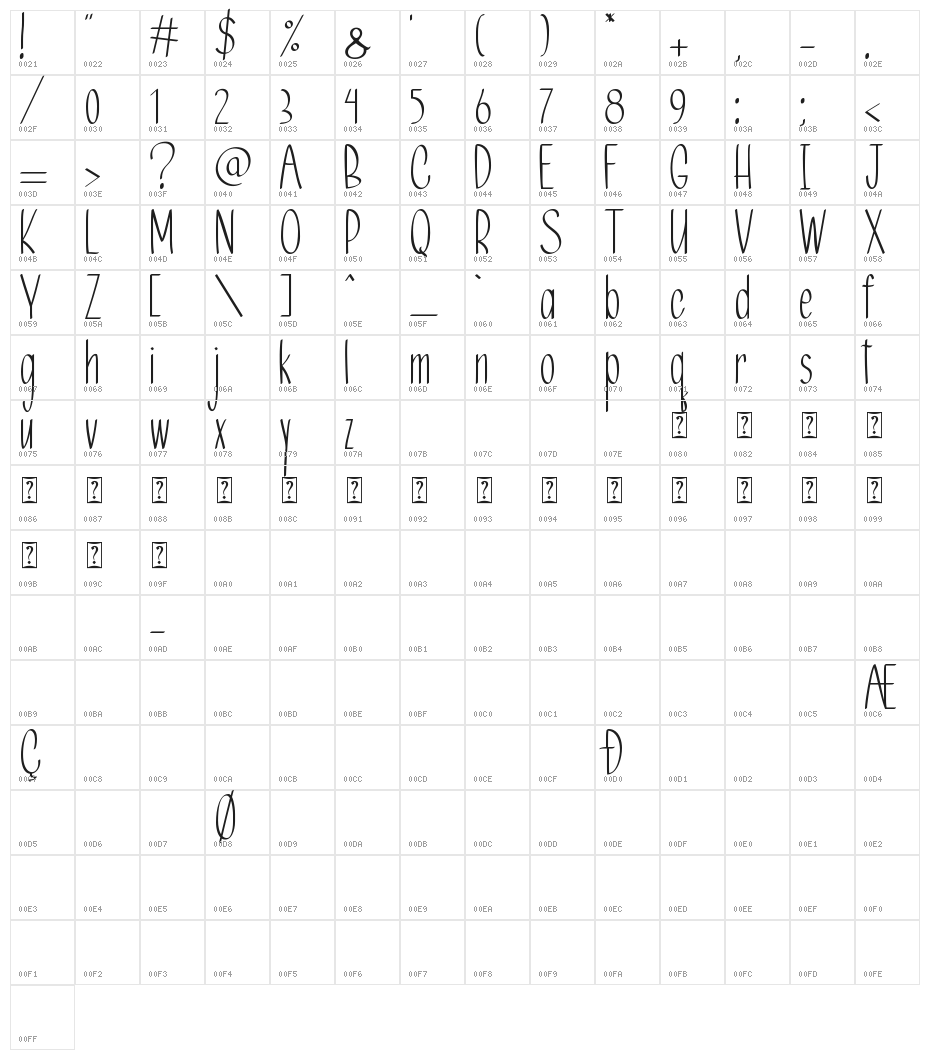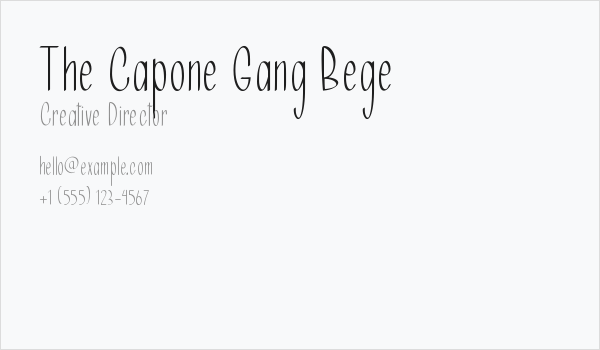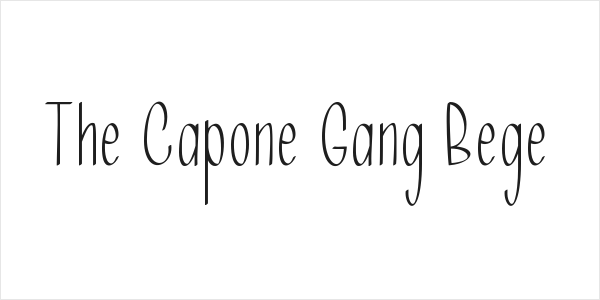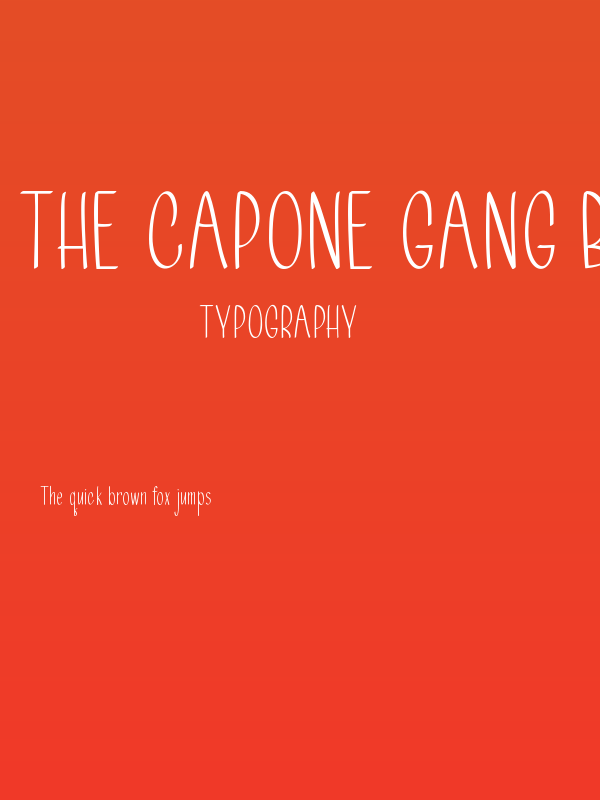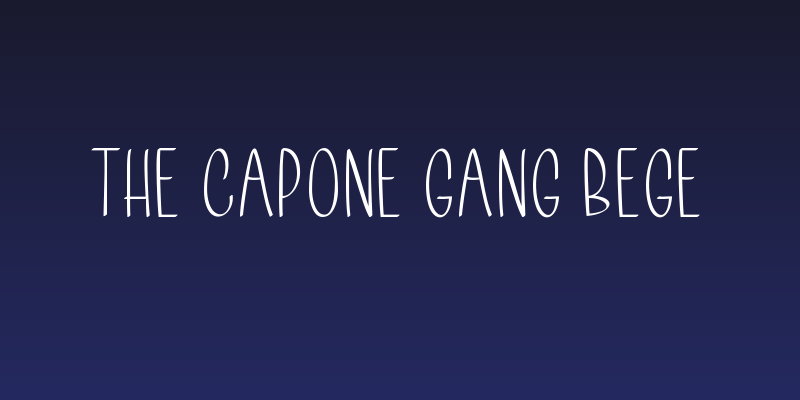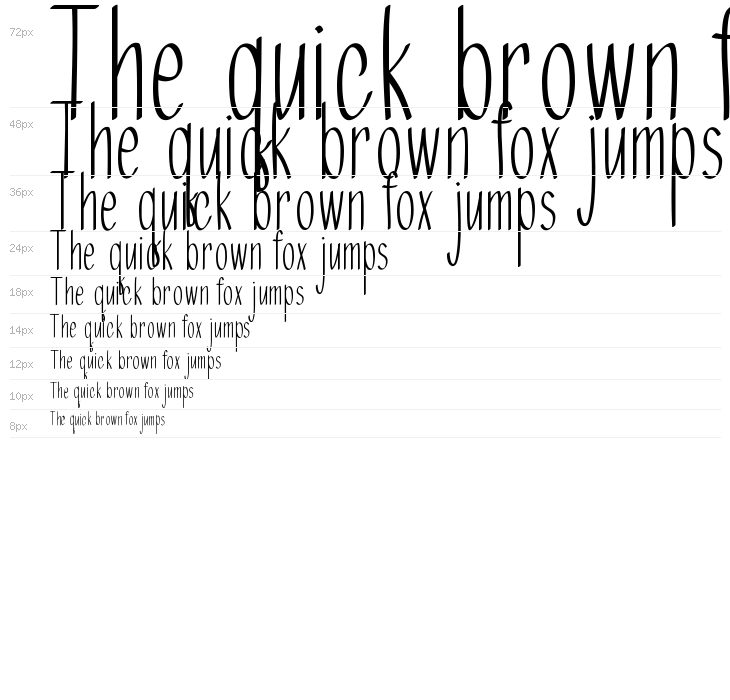
The Capone Gang Bege Font
The Capone Gang Bege Description
This font features a playful and quirky handwritten style, characterized by tall, narrow letters with a slight slant. The uppercase letters are elongated, giving a whimsical and casual appearance, while the lowercase letters maintain a consistent height with a slightly more rounded form. The numerals are distinct and easy to read, matching the overall playful aesthetic. Special characters are creatively designed, adding to the font's unique personality. The strokes are consistent in width, providing a clean and modern look. This font is ideal for projects that require a fun and informal touch.
| Overall Style | Playful, Casual |
| Use Case | Headlines, Posters, Invitations |
| Proposed Projects | Great for children's books, creative posters, casual invitations, and playful branding. |